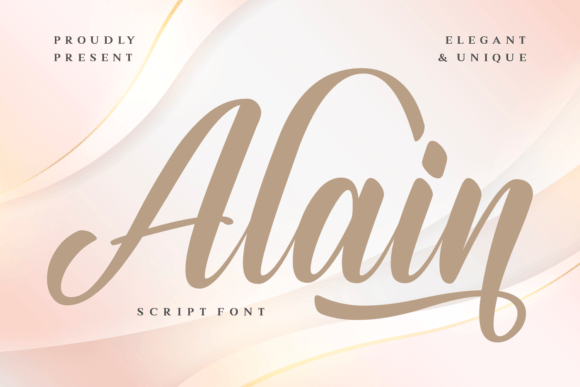
Journey into the realm of Alain Font, a mesmerizing script font that will enchant your designs with its graceful strokes and alluring charm. This exquisite typeface is crafted with meticulous attention to detail, inviting you to elevate your creations with an air of sophistication and artistry.
Unleash your creativity with Alain Font, the perfect choice for adding a touch of elegance to logos, watermarks, invitations, greeting cards, and more. Its versatile nature makes it adaptable to a wide range of projects, allowing you to explore endless possibilities and bring your visions to life.
Immerse yourself in the beauty of Alain Font's calligraphy-inspired characters, each meticulously designed to evoke a sense of wonder and captivation. Its flowing lines and delicate curves dance across the page, leaving a trail of elegance in their wake.
With Alain Font, you hold the power to transform ordinary designs into captivating masterpieces. Its PUA encoding unlocks a treasure trove of glyphs and swashes, empowering you to effortlessly add intricate details and flourishes that will leave a lasting impression.
Unlock the potential of Alain Font today and embark on a creative journey where artistry and elegance converge. Let the allure of its script lettering elevate your designs to new heights, captivating your audience and leaving them in awe. Embrace the beauty of Alain Font and let your imagination soar.